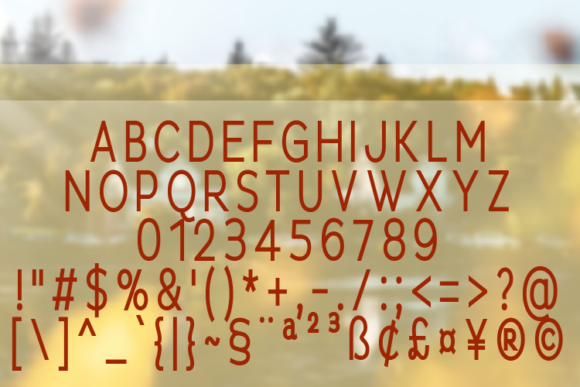
Introduction to Nueve Bold Font
As a designer, there’s nothing quite like the thrill of bringing a creative project to life. You’re sipping coffee, surrounded by half-finished sketches, and your computer screen is a sea of colors and fonts. And then, it hits you – the perfect font that elevates your entire design. For many designers, that font is Nueve Bold Font. This elegant and clean sans serif font is more than just a design resource – it’s a game-changer.
Nueve Bold Font is the perfect addition to any design project, from logos and magazines to website design and product packaging. Its versatility and high quality make it a valuable asset for designers of all levels. And the best part? It’s available for free download, making it accessible to everyone. Whether you’re working on a personal project or a high-profile client, Nueve Bold Font is sure to impress.
Key Features of Nueve Bold Font
- Unique, bold font style with a transparent background, perfect for adding depth and visual interest.
- Features a high-resolution design, suitable for use in print materials and digital applications at 300 DPI or higher.
- Includes a comprehensive character set, covering a wide range of languages and special characters.
- Designed to be highly legible, even at small font sizes, making it suitable for use in a variety of contexts.
- Part of a larger font family, offering flexibility and consistency across different design projects.
Honest Review: Nueve Bold Font
As a designer, I’m always on the lookout for high-quality design resources that can elevate my creative projects. Recently, I stumbled upon the Nueve Bold Font, and I’m excited to share my honest review.
- ✨ The font is highly legible, making it perfect for body text and headings.
- ✨ The transparent background option allows for seamless integration into any design project.
- ⚠️ The font may not be suitable for intricate typography or fine details, as it can appear slightly pixelated.
- ⚠️ The font family is relatively small, which may limit its versatility in certain design contexts.
Overall, I’m impressed with the Nueve Bold Font. While it may not be perfect for every design project, it’s a solid choice for creative endeavors that require a clean and legible font. Its free download option and transparent background feature make it an attractive resource for designers.
How to Use Nueve Bold Font
Nueve Bold Font is a versatile design resource ideal for various creative projects. With its sleek and modern aesthetic, it’s perfect for designers seeking a high-quality font for their next project.
Transparent Background
Nueve Bold Font features a transparent background, allowing you to easily combine it with other design elements. This flexibility makes it an excellent choice for designers working on projects with complex backgrounds.
Getting the Most Out of Nueve Bold Font
To get the most out of Nueve Bold Font, experiment with different font sizes, colors, and styles. You can also combine it with other design elements to create a unique and eye-catching visual identity.
Nueve Bold Font is perfect for a variety of creative projects, including:
- Marketing campaigns